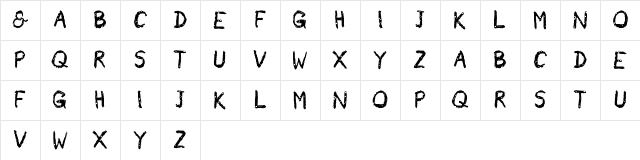
Rain & Neer Regular Free Font
Rain & Neer Regular
Foundry: Tharique Azeez
Designer: Tharique Azeez
Rain & Neer Family
Rain & Neer Regular
Design Context for Rain & Neer
Rain & Neer is a composed and adaptable typeface that performs quietly and consistently across a wide range of design contexts.